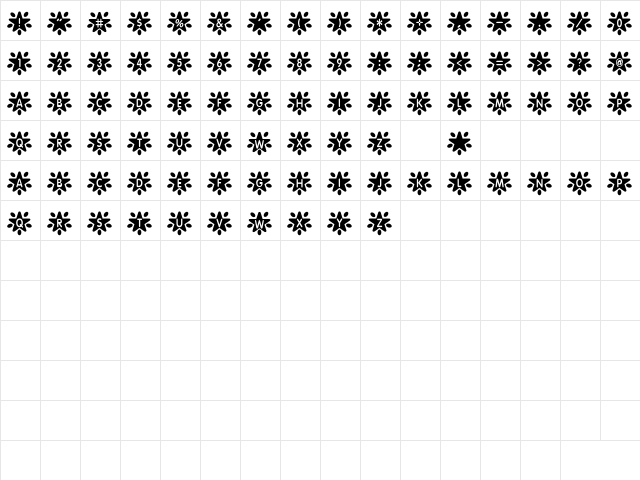
STAR+STAR (sRB) Regular
STAR+STAR (sRB) is a composed and adaptable typeface that performs quietly and consistently across a wide range of design contexts.